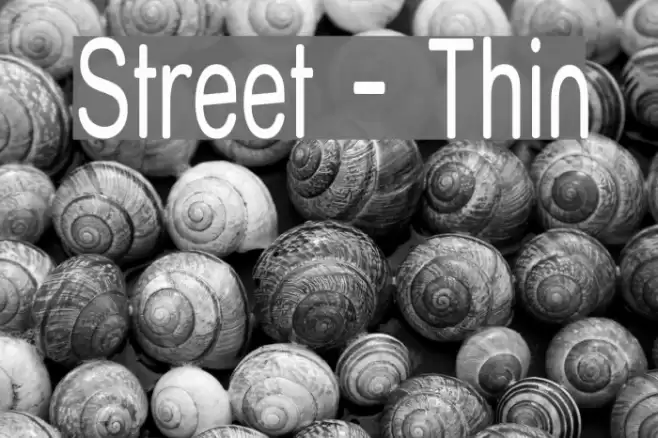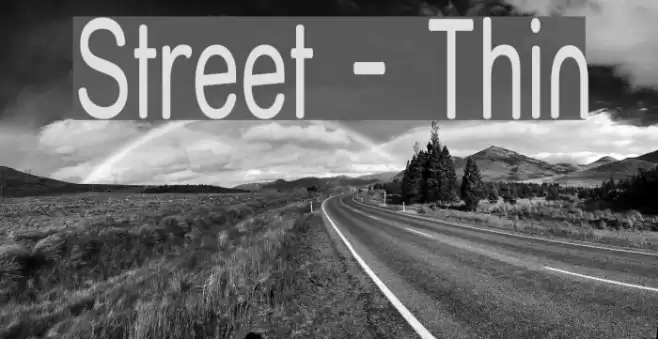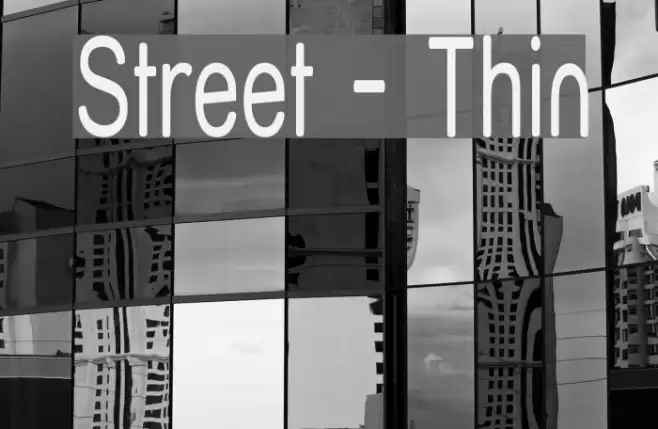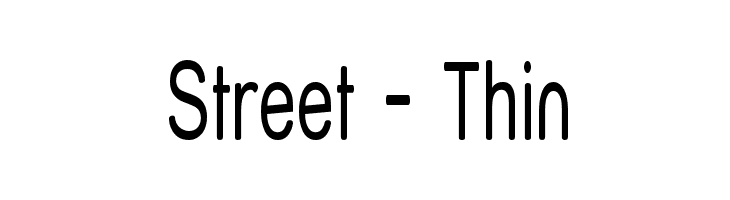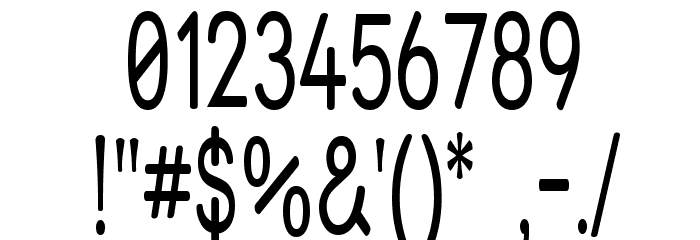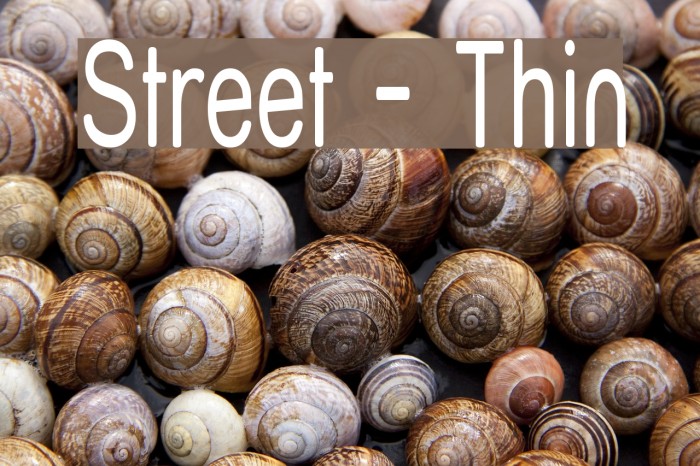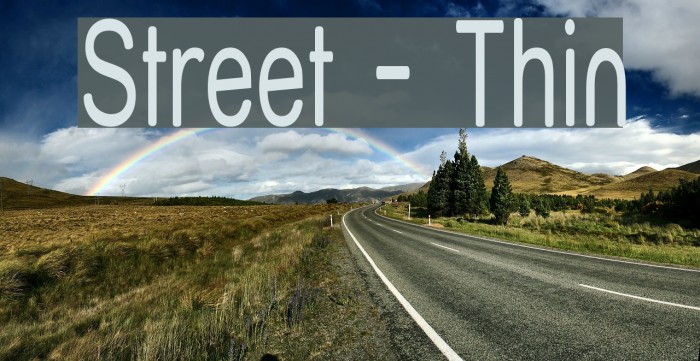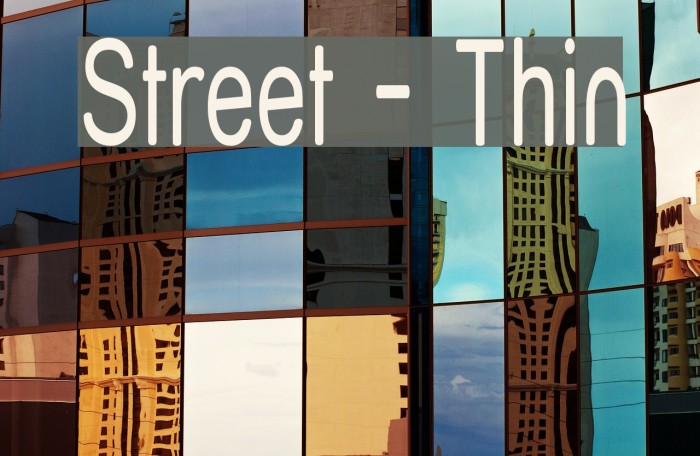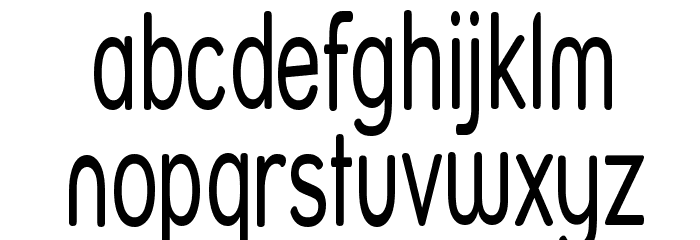
Street - Thin Font
Street - Thin Description
This font features a clean and modern sans-serif style with a thin weight, offering a sleek and minimalist appearance. The characters are evenly spaced, providing a balanced and harmonious look. Its simplicity and clarity make it highly legible, suitable for both digital and print media. The uniform stroke width across all characters contributes to its contemporary feel, making it versatile for various design applications. The font includes a full set of uppercase and lowercase letters, numbers, and a variety of special characters, ensuring comprehensive usability.
A modern, thin sans-serif font with clean lines and high legibility from Sans Serif fonts.
- Proposed Projects: Ideal for branding, web design, editorial layouts, and minimalist posters.